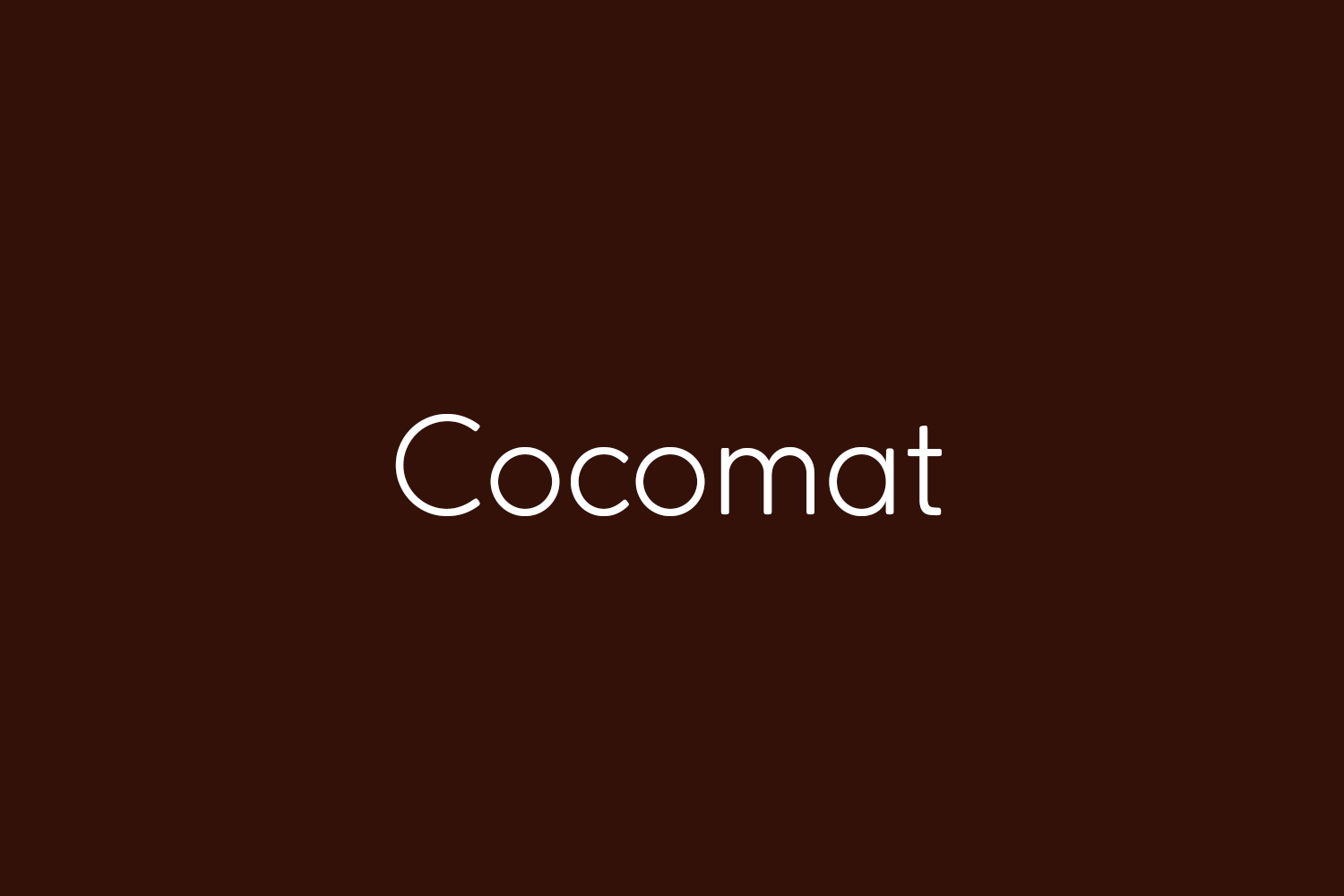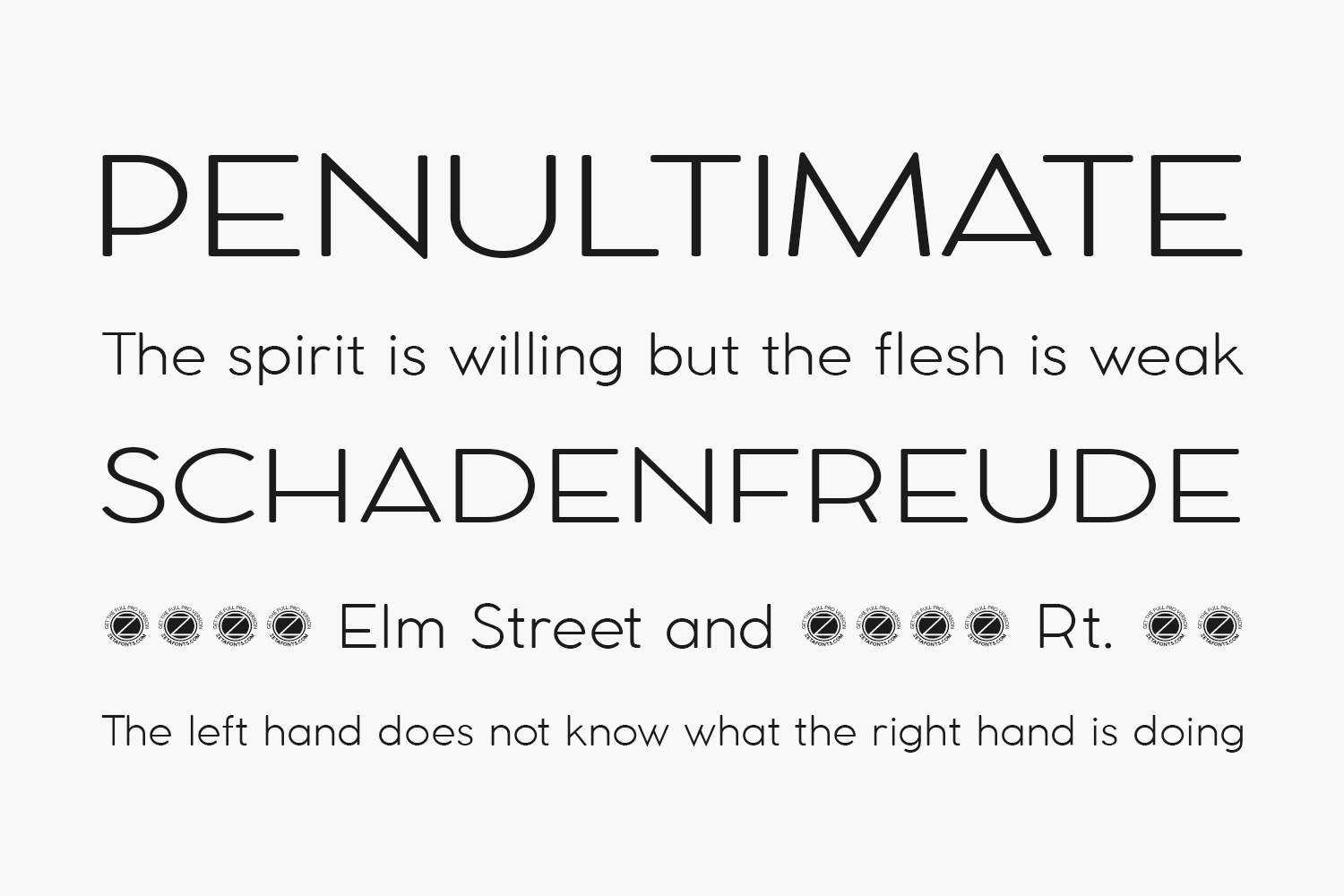
Cocomat Free Font Family is a typeface variant from the Coco Gothic family of sans serif geometric typefaces. It’s inspired by the style of the twenties and the visions of Italian futurists like Fortunato Depero, Giacomo Balla, and Antonio Sant’Elia. In this package are two weights of the five weights available. This font is free for non-commercial use. For commercial uses, you must get a license.